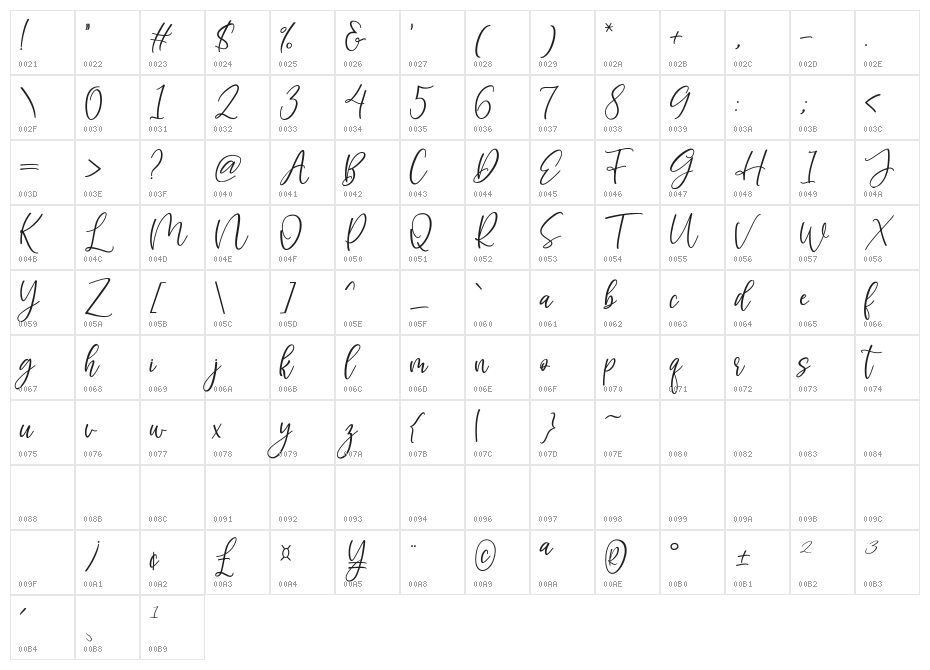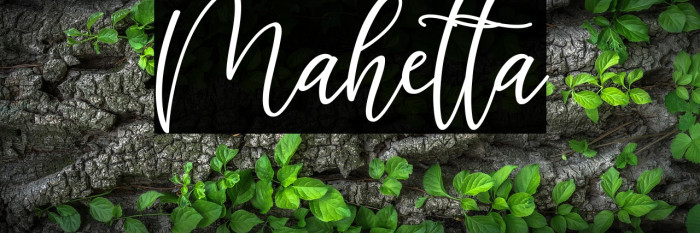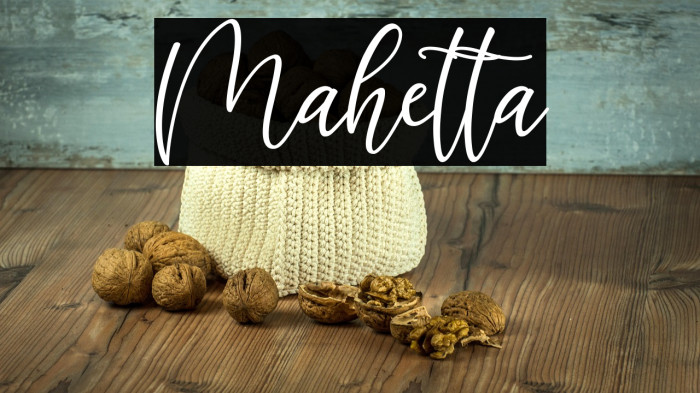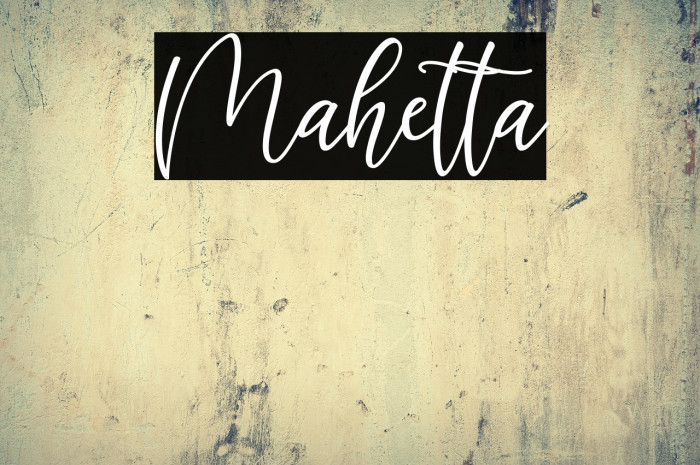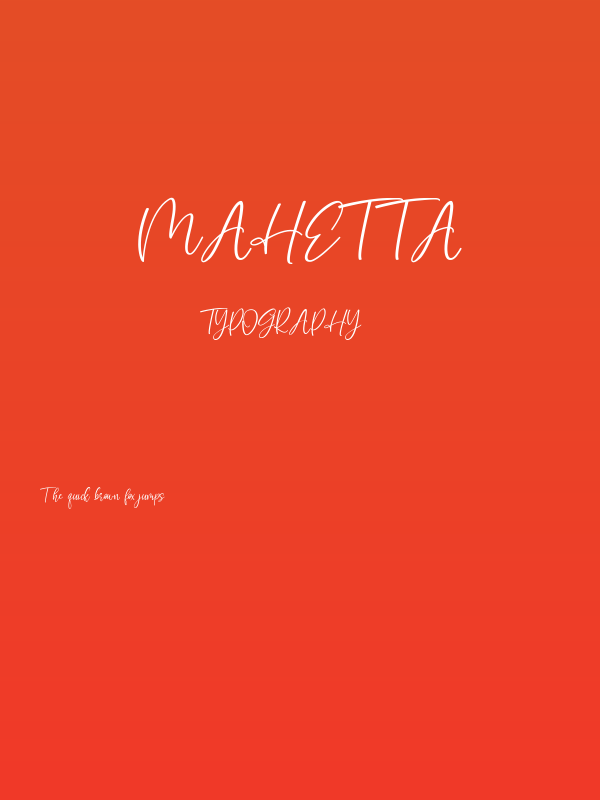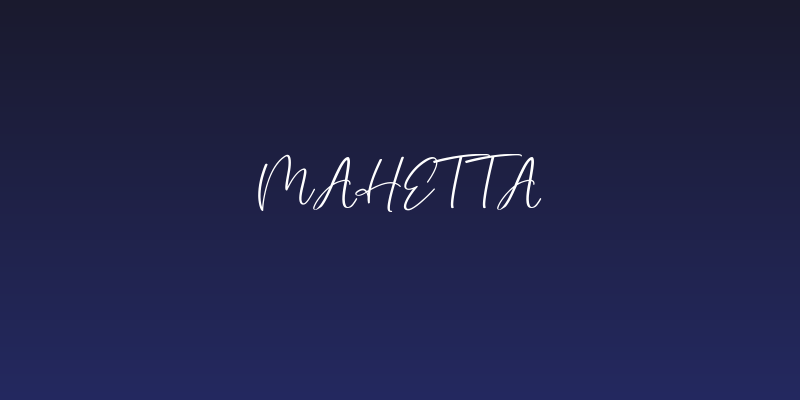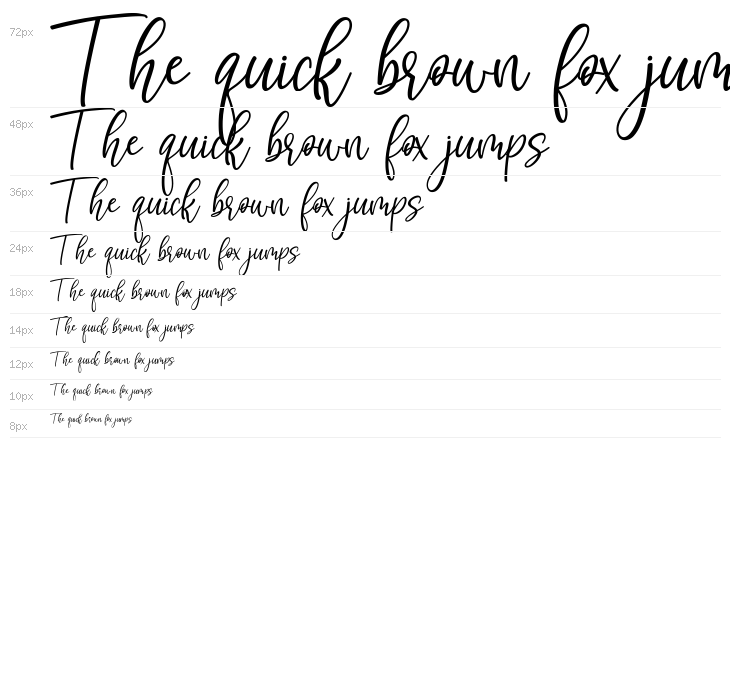
Mahetta Font
Mahetta Description
This font exhibits a lively and flowing script style, characterized by its elegant and fluid strokes. The uppercase letters are tall and slender, with a slight slant that adds a sense of motion and grace. The lowercase letters maintain a consistent flow, with smooth connections between characters, enhancing its cursive appeal. Numbers and special characters are crafted with the same attention to detail, ensuring a cohesive look throughout. The overall appearance is both sophisticated and approachable, making it suitable for a variety of creative applications.
| Overall Style | Elegant and Modern |